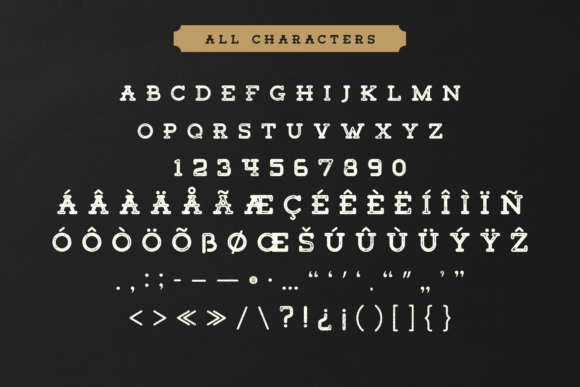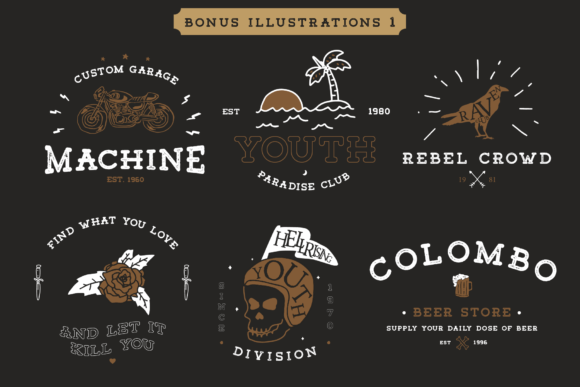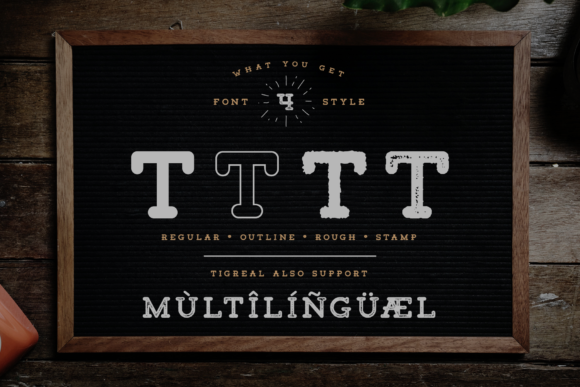
Tigreal Family: A Versatile Slab Serif Font Collection
Tigreal Family is a striking slab serif font collection that offers designers a powerful and flexible tool for creating impactful typography. This font family combines classic slab serif characteristics with unique stylistic variations, making it suitable for a wide range of design projects.
Key Features of Tigreal Family
- Four Distinct Styles: Includes Regular, Stamp, Rough, and Vintage variations
- Versatile Application: Suitable for creating unique designs across various projects
- Bonus Illustrations: Comes with 2 illustration packs for enhanced design possibilities
- Slab Serif Structure: Features the characteristic thick, rectangular serifs typical of slab serif fonts
Tigreal Font Styles
- Tigreal Regular: The standard version for clean, bold typography
- Tigreal Stamp: Mimics a stamped effect for a vintage or official look
- Tigreal Rough: Adds texture for a weathered, rustic appearance
- Tigreal Vintage: Evokes a nostalgic feel with its aged aesthetic
Ideal Uses for Tigreal Family
Tigreal Family’s versatile design makes it particularly well-suited for:
- Branding and logo design
- Poster and advertisement layouts
- Editorial and magazine designs
- Packaging and product labeling
- Web design and digital media
Comparison with Other Slab Serif Fonts
While Tigreal Family shares characteristics with other slab serifs like Tecnica Slab Family, its multiple stylistic variations set it apart. Unlike more traditional slab serifs such as Osgood Slab, Tigreal offers a wider range of design possibilities within a single font family.
When incorporating Tigreal Family into your designs, consider the following tips:
- Experiment with different styles to create hierarchy and visual interest
- Utilize the bonus illustrations to complement your typographic designs
- Combine styles within a single project for a dynamic, layered look
- Consider the appropriate style for your project’s tone and purpose
Tigreal Family is an excellent choice for designers looking to add a versatile and striking slab serif to their typographic toolkit. Its range of styles and bonus illustrations make it stand out in the world of typography. Whether you’re working on logo designs, creating eye-catching poster designs, or developing branding for various projects, Tigreal Family offers the perfect blend of classic structure and stylistic variety.
Explore how Tigreal Family can bring a unique edge to your design projects. From clean and modern to rough and vintage, this font family provides the tools to create impactful and memorable typography that stands out in various design contexts.